A Guide to Pairing Fonts
Understanding Typographic Hierarchy and Selecting Typefaces
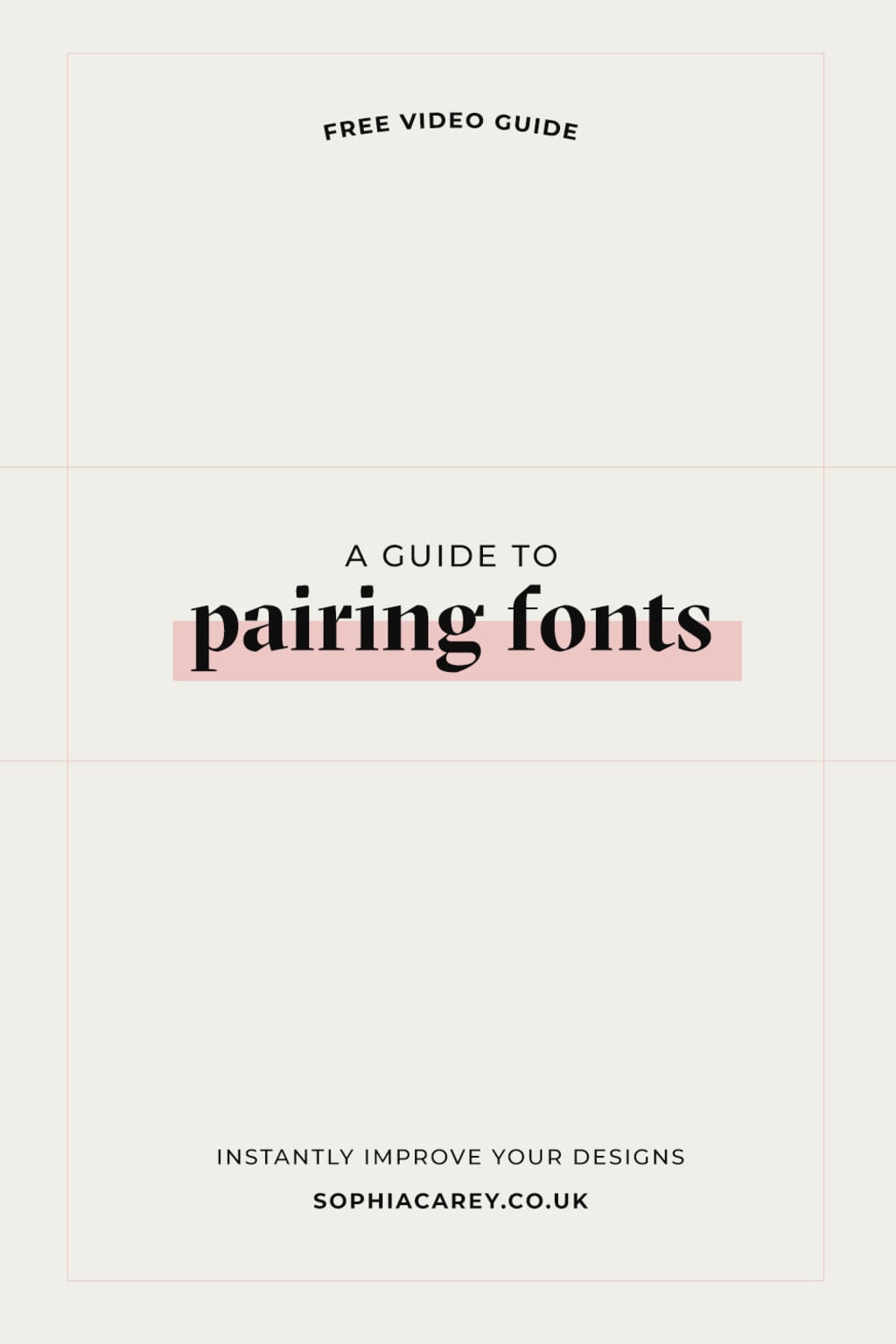
Understanding how to use different fonts and typefaces together is an instrumental part of any design. Whether you’re interested in learning more about design as a hobby or profession or you’re interested in learning more about design to help better your business, hopefully this guide will give you some ideas on how you can utilise type more effectively.
To first get acquainted with the language of typography, I’ve put together this video below. It helps to talk through the basic language and differentiate between terms that are commonly mixed up, such as readability and legibility, and sans-serif and serif. It’s not instrumental to have watched it before you continue with this guide, but it might help in giving you a clearer overview of typography as an art.
Let’s Talk About Hierarchy
Hierarchy, or visual hierarchy, is used within design to help guide and direct the reader’s eye to the most important information. It is used to create an idea of where to begin reading, where to read next, and so on, using different levels of emphasis. The overall goal is to increase the legibility and readability of the type.
So, how can we create hierarchy in design? The best way to use hierarchy in design is to utilise contrast. Using contrast is a great way to differentiate between the different levels of your design. Keep in mind that it’s important to use just enough contrast: small changes will not be powerful or effective enough and will just add noise to your design, but too much contrast could disrupt your communication.
The main themes that we will be exploring throughout this guide are contrast and balance. The secret to creating good font pairings that work cohesively in their communication is to create enough contrast whilst maintaining a suitable balance. This is something I talk about in more detail within the video guide at the bottom of this article.
Tips for Pairing Fonts
Remember to use hierarchy. This is an ideal time to utilise hierarchy and create different levels within your design: titles, subtitles, body type, for example.
Don’t let your pairings clash. Avoid using similar fonts together. For example, two sans-serif fonts that are both tall, chunky and thin. Using similar typefaces reduces your legibility and makes it harder for the reader to understand the design.
Avoid too much contrast. Find a balance between having too much contrast and not enough. It can be important to use your judgement when it comes to creating enough contrast but, when creating contrast with size, using the golden ratio as a starting point can be useful. Simply multiply or divide the point size of your type by 1.618 and round it to the nearest whole number to create differentiations in your sizing.
Mix up sans-serif and serif. Most of the time, serif typefaces and fonts work best as a body type. This offers a good amount of contrast and creates a clear hierarchy. Maybe this is the ultimate type pairing.
Less is more. Keep it minimal and stick to using just 1-2 typefaces or fonts to ensure that you aren’t overcomplicating your design.
For three-font combos, use one typeface and two fonts for the heading and then use a contrasting typeface for your body type.
To see these tips in action and for some further discussion on how you can create great font pairings, I’ve put together this video which discusses the points in more depth and with some more visual examples:
Where Can I Find Typefaces?
Around the web, there are plenty of places that you can source typefaces for your next project. Some of my favourites include Adobe Typekit (which is included in the Creative Cloud membership) and Google Fonts (which is a great website for free typefaces and ones that are web-compatible). Some of my other favourites include MyFonts and Fonts.com, as well as Creative Market which can be a great source of bespoke typefaces.